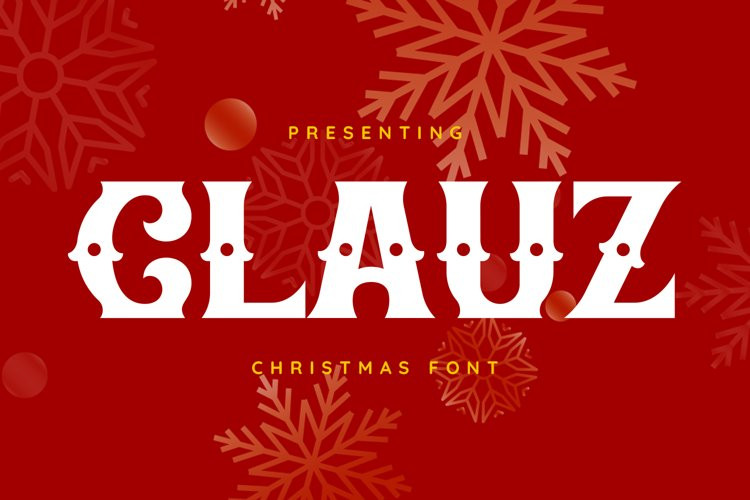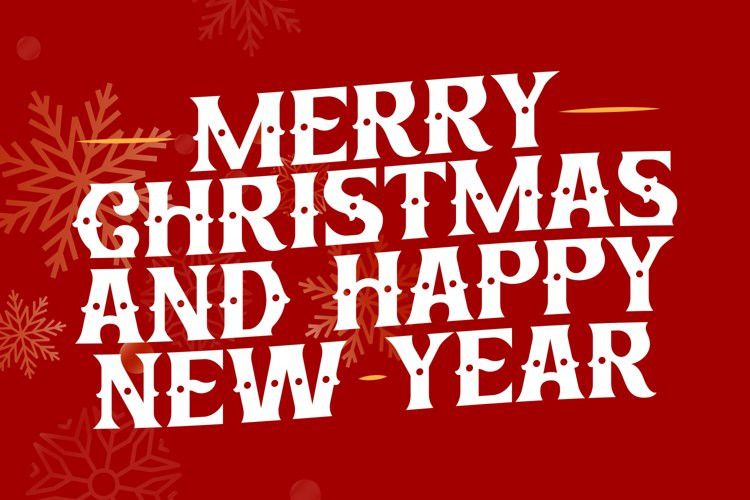
Clauz Font
Clauz FontClauz is a cool and thick lettered display font. It will add an incredibly joyful touch to your designs. Add this beautiful display font to each of your creative ideas and notice how it makes them stand out!